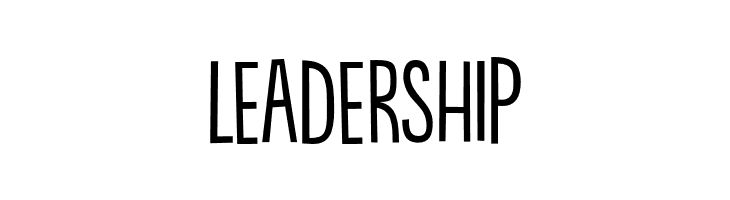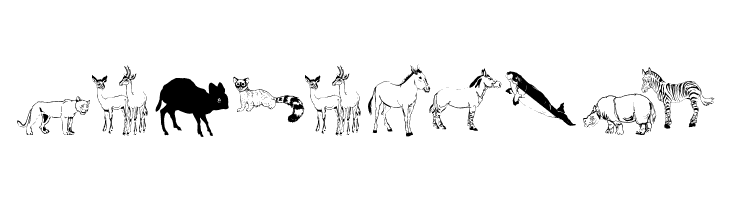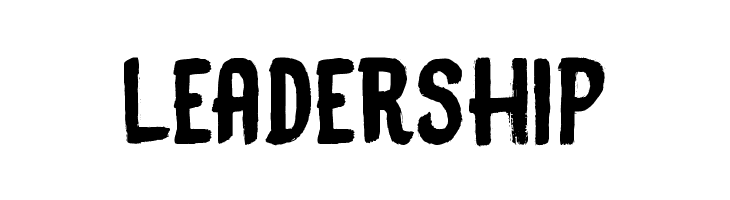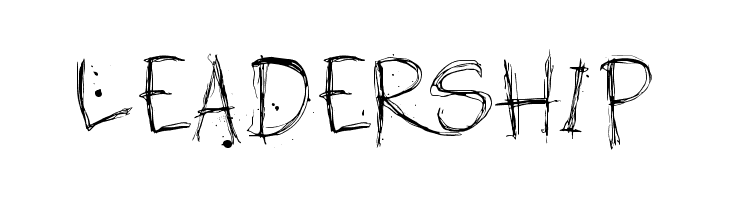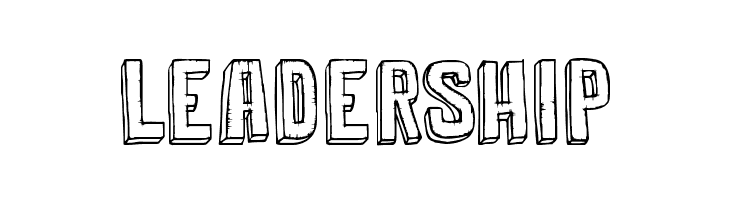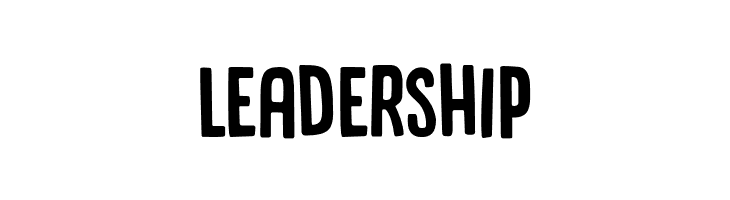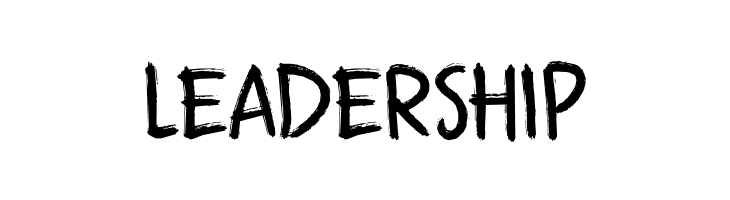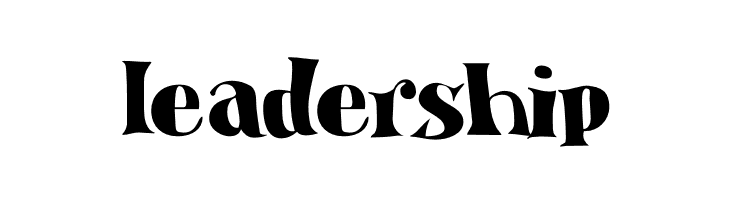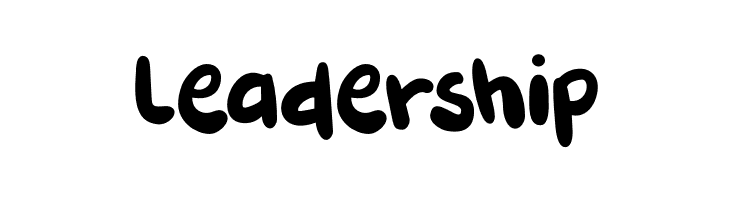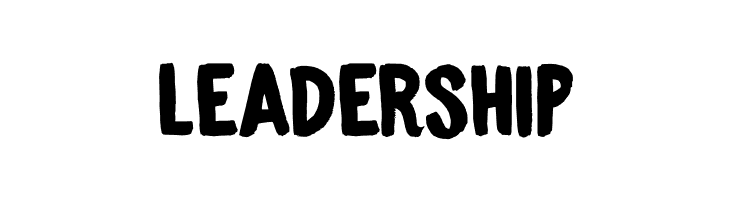
A bold, decorative font with jagged, flame-like edges for a dynamic look.
Animal illustrations form each character in a decorative, playful style.
A chaotic and expressive font with jagged, irregular strokes and a dripping effect.
A bold, brush-style font with a hand-painted look.
A chaotic, hand-drawn font with a rough, expressive style.
A bold, brush-style font with dynamic, hand-painted strokes.
A bold, hand-drawn font with an expressive and playful style.
A bold, distressed font with a rebellious and edgy style.
A bold, hand-drawn font with a textured, sketch-like appearance.
A playful, decorative font with tall, narrow characters and unique starburst symbols.
A bold, distressed font with a rugged, industrial aesthetic.
A bold, brush-style font with rugged, distressed edges.
A classic Blackletter font with intricate, Gothic-inspired design.
A bold, hand-painted font with a textured, artistic style.
A playful, bold handwritten font with rounded, casual letterforms.
A dynamic, sketch-like font with an edgy, hand-drawn appearance.
A playful, bold font with rounded edges and a slightly condensed style.